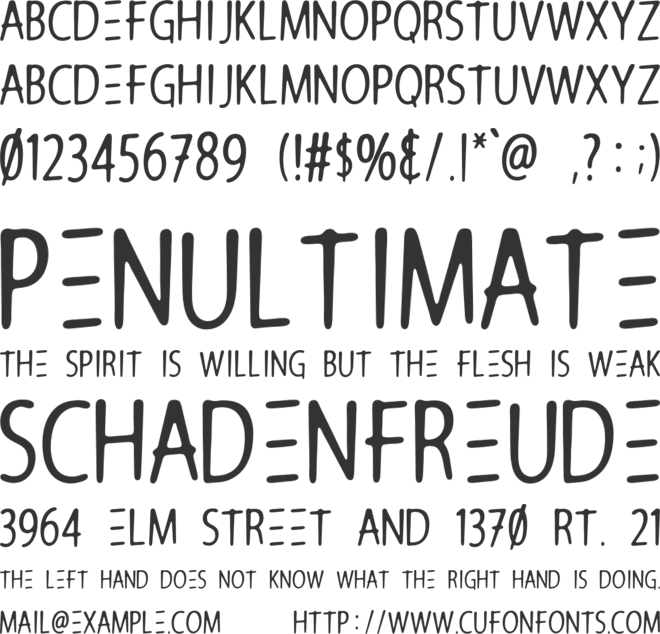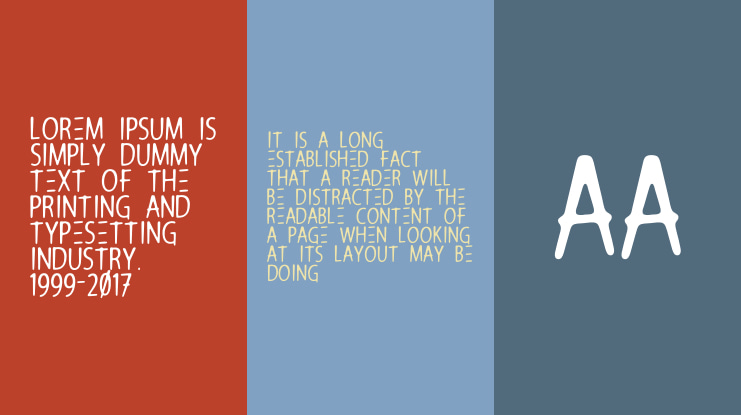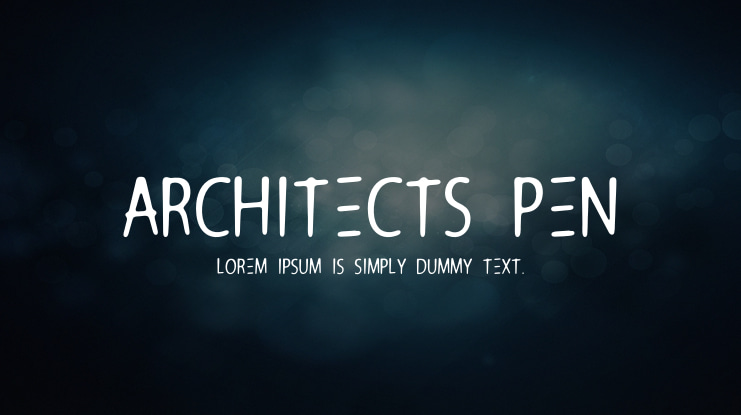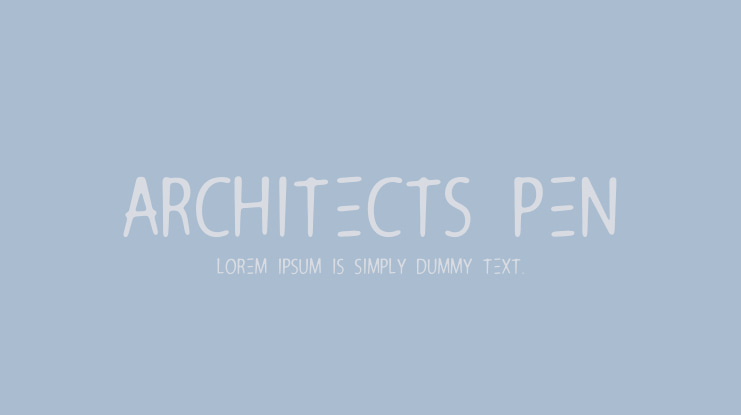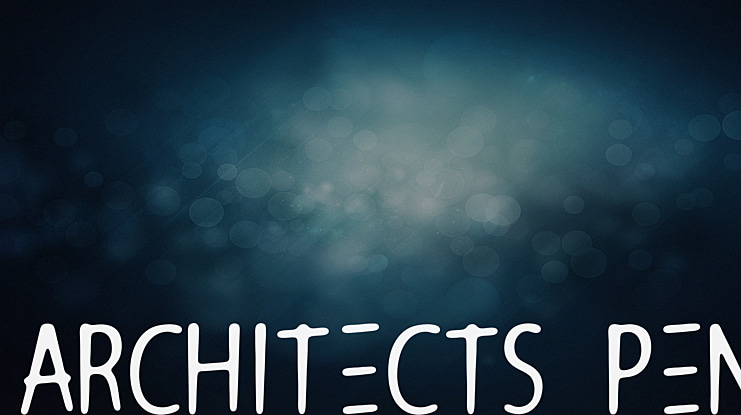
Architects Pen Font
Michael Hassler
Architects Pen is a handwritten font. Inspired by the straight precise but hand wrote letters from sketches and blueprints.
This font would be great for projects where a clean hand wrote style look is needed.